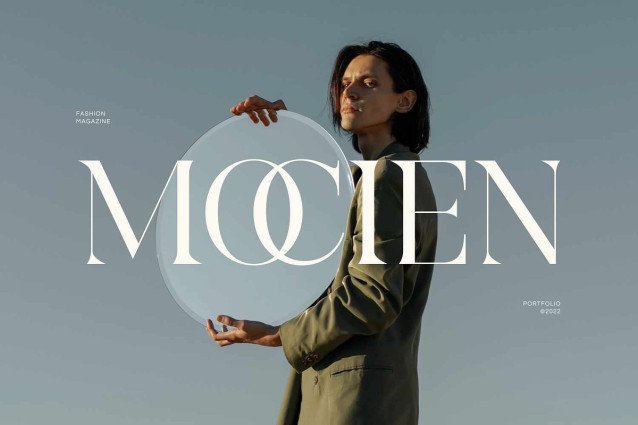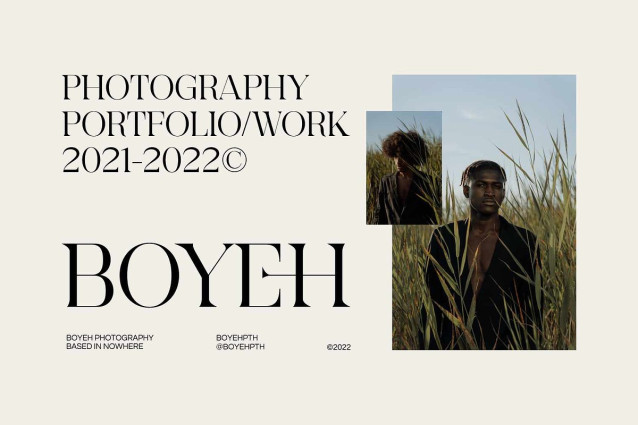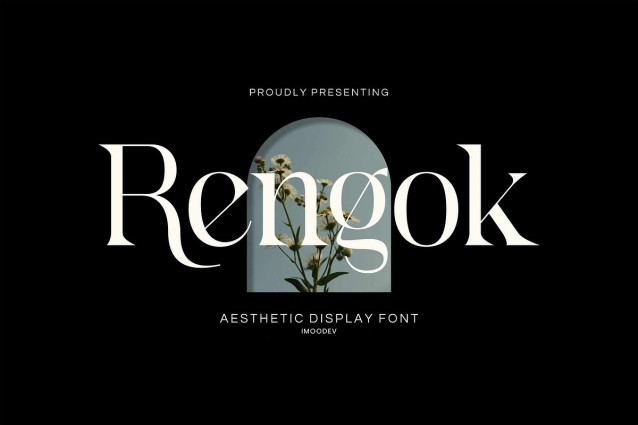
Rengok Font
Rengok Font a stunningly elegant and aesthetic serif font designed to bring a touch of class and modern sophistication to your projects. This font curves and extended serifs give it a classic, luxurious feel, while its modern proportions and sleek lines lend it a contemporary touch.
Rengok would be an excellent choice for branding, as well as editorial headings, high end fashion magazines, photography portfolios, and luxury branding.